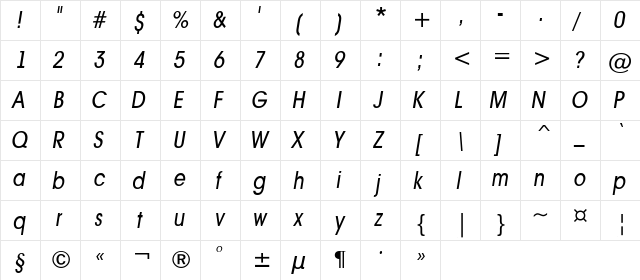
a_AvanteTckNr Italic
Design Context for a_AvanteTckNr Typeface
a_AvanteTckNr offers clean, dependable letterforms without strong stylistic allegiance, making it a practical choice for designers who need flexibility. Its italic angle brings a sense of urgency and motion to the letterforms.
Pro Tip: Use a_AvanteTckNr for emphasis, pull quotes, and subheadings where its slanted energy can add rhythm to the layout.